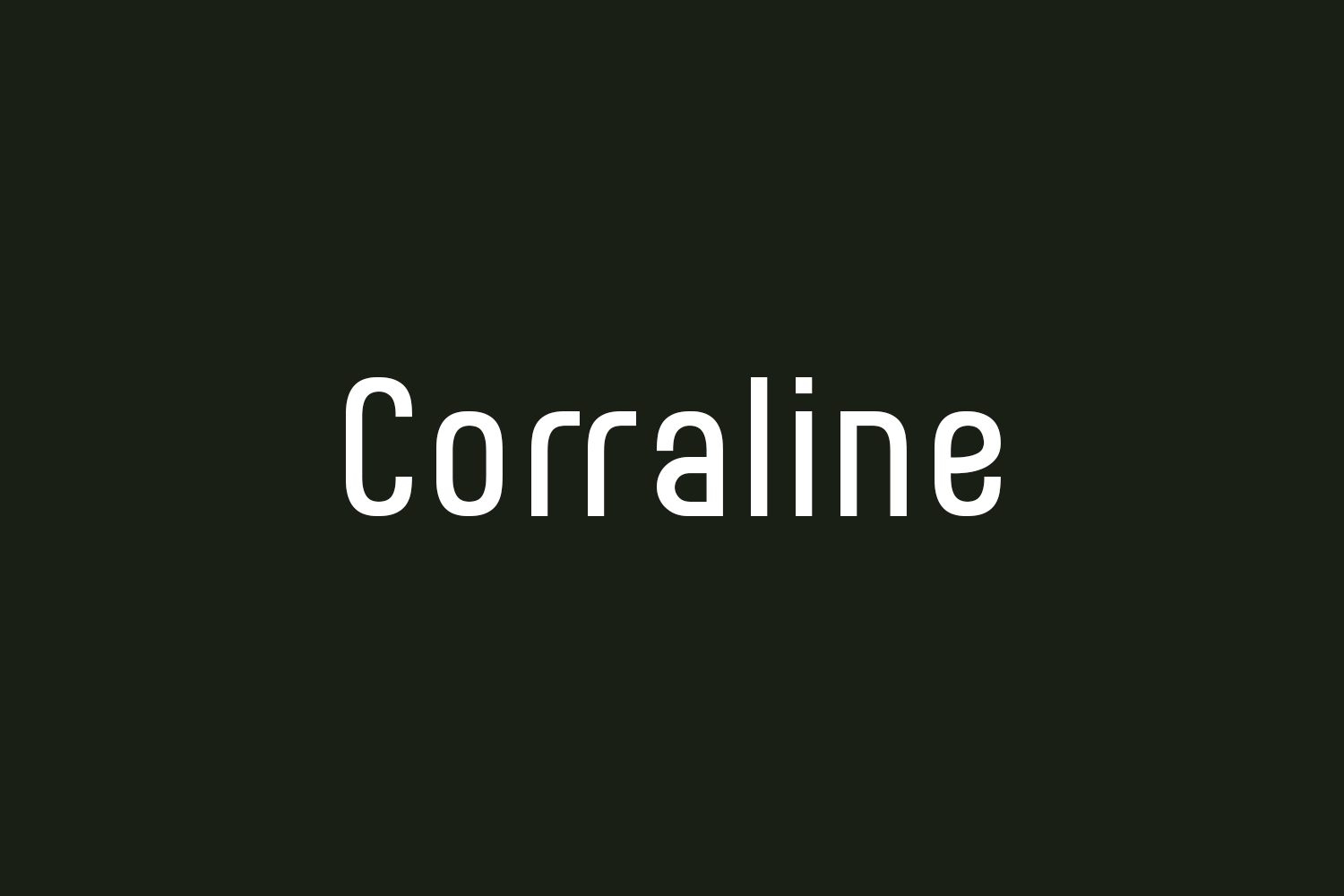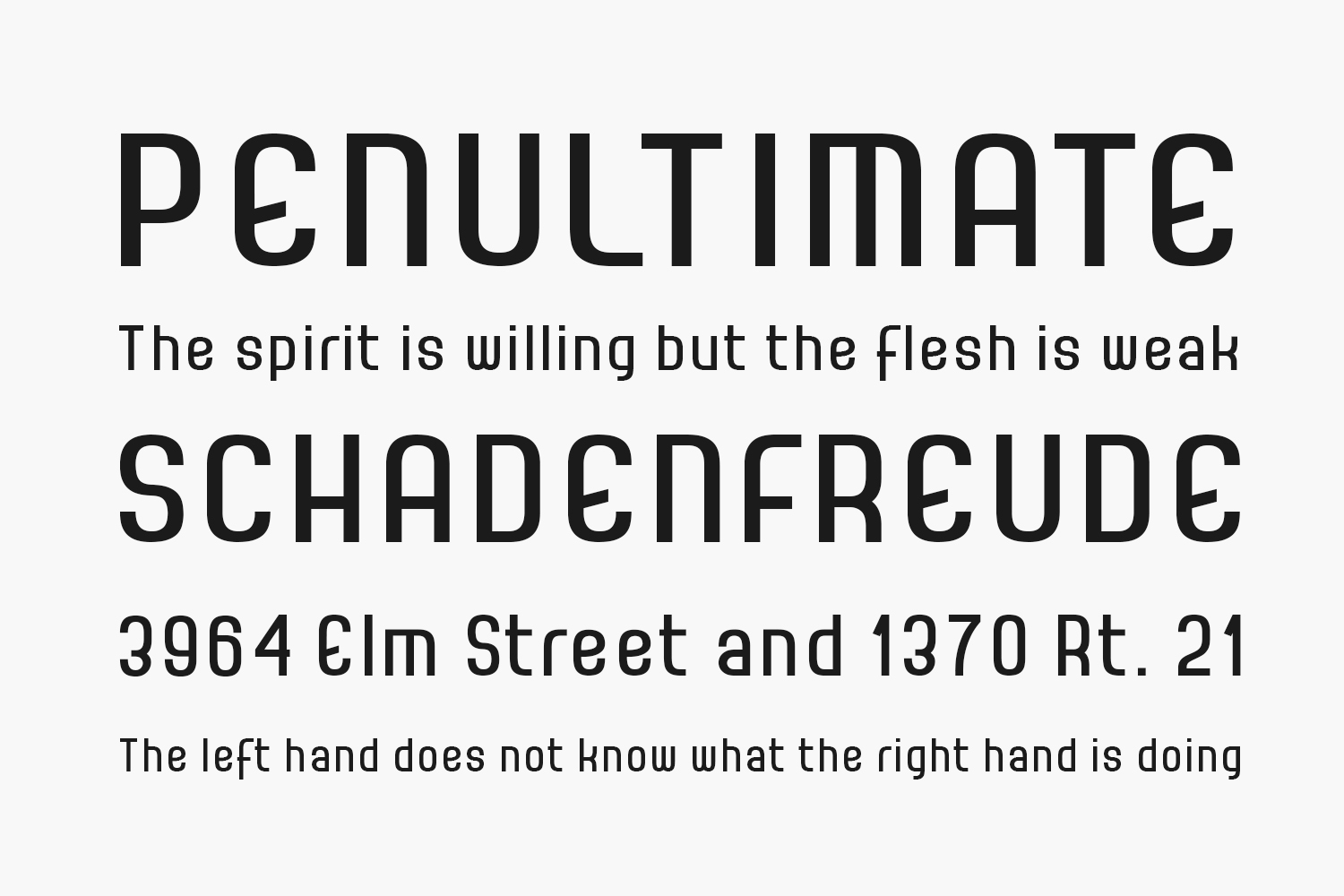
Corraline Free Font Family is an elegant and simple display font. Masterfully designed to become a true favorite, this font has the potential to bring each of your creative ideas to the highest level. Corraline Free Font Family was designed by Canoute Creative and is free for personal use only. Please purchase the full version for commercial use.
Corraline Bold The quick brown fox jumps over the lazy dog
Corraline Italic The quick brown fox jumps over the lazy dog
Corraline Line The quick brown fox jumps over the lazy dog